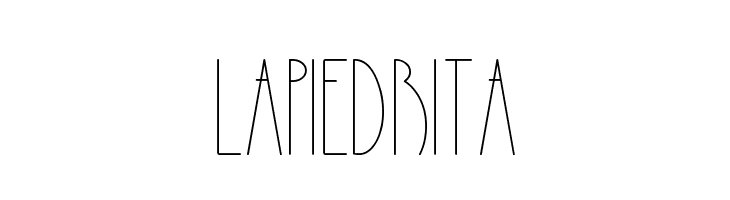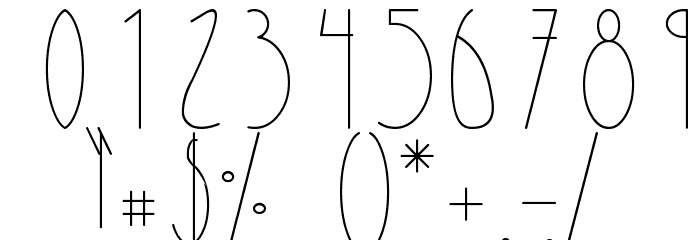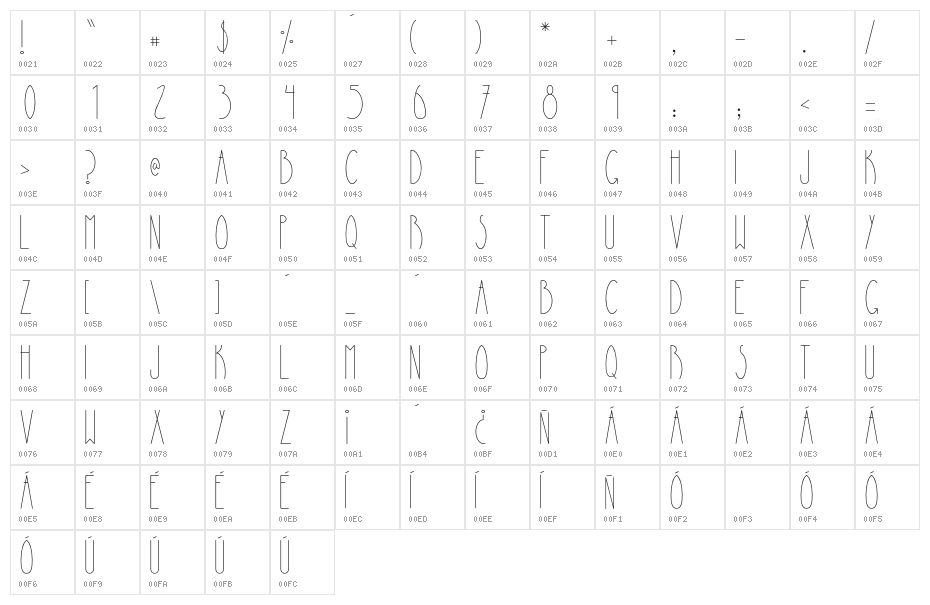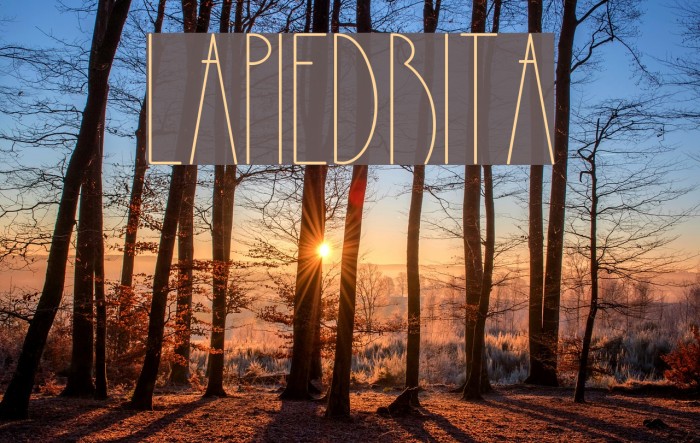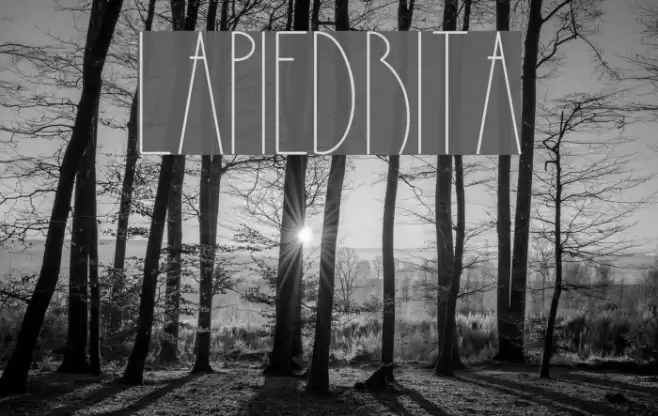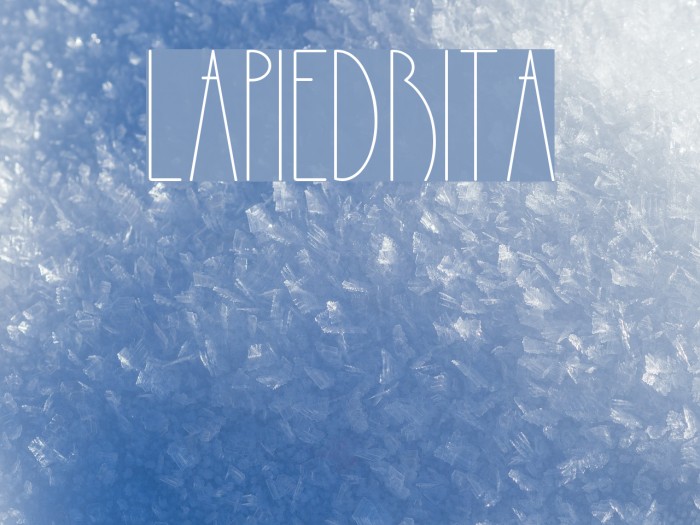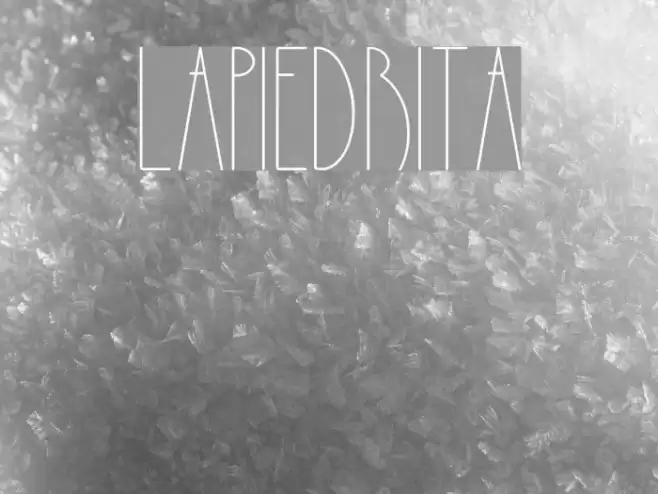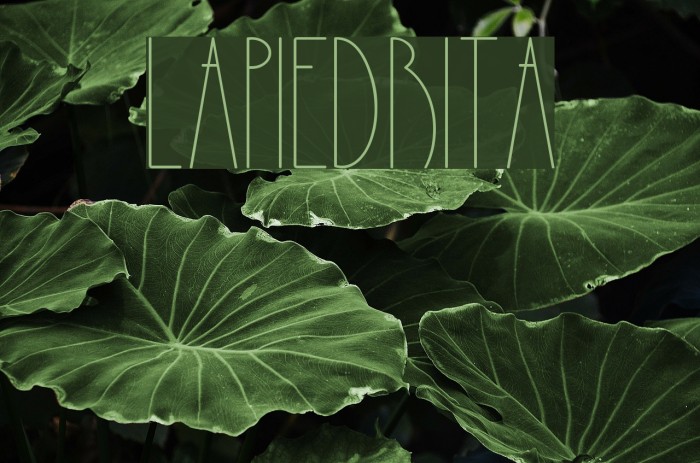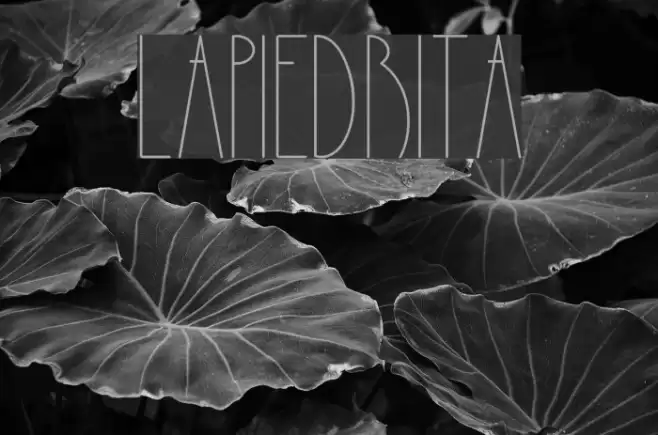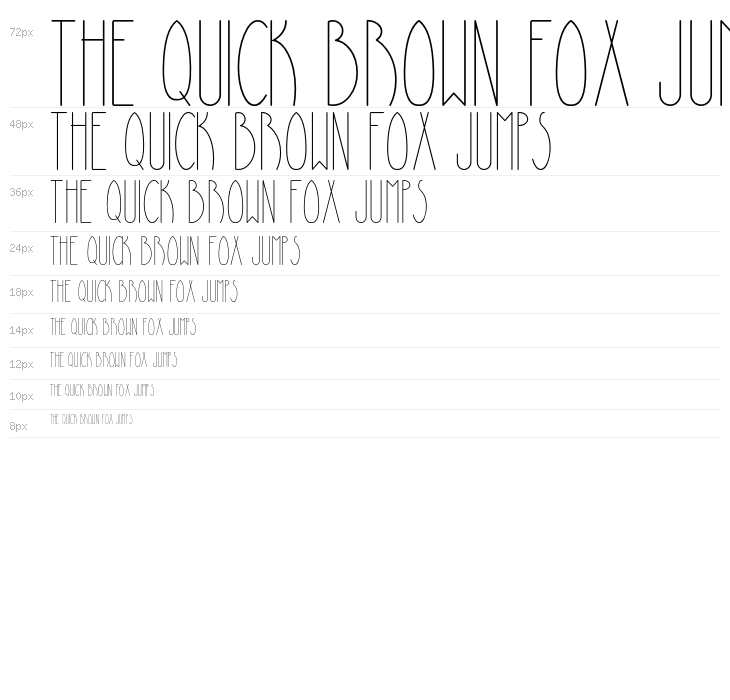
LaPiedrita Font
LaPiedrita Description
This font features an ultra-thin and elongated design, characterized by its tall, narrow letters and minimalistic style. The strokes are consistently thin, giving it a delicate and elegant appearance. The uppercase and lowercase letters maintain a uniform height, contributing to a cohesive and streamlined look. The numerals and special characters follow the same slender aesthetic, ensuring a harmonious overall presentation. The font's unique style is both modern and artistic, making it suitable for creative and contemporary projects.
| Use Case | Headlines, Logos, Artistic projects |
| Proposed Projects | Ideal for fashion magazines, luxury branding, artistic posters, and modern web design. |